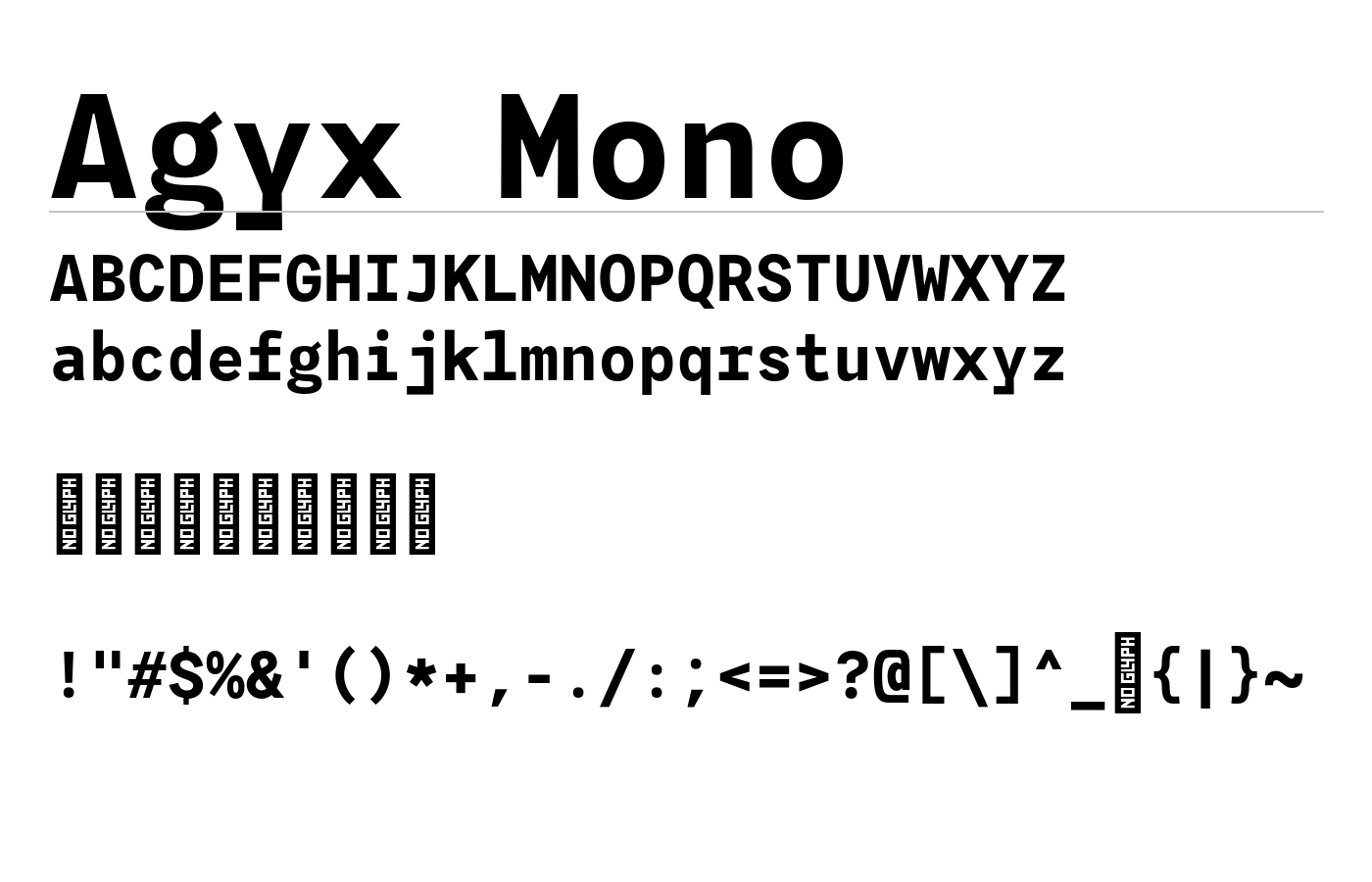
Agyx Mono is a bold, monospaced sans serif font with a modern and slightly industrial feel. Its consistent stroke weight, tall x-height, and unique, straightforward letterforms make it highly readable and suitable for coding, technical, or editorial use where clarity and uniformity are key. This font works well in digital interfaces, headlines, and branding that seek a clean, no-nonsense aesthetic with a touch of personality.
Agyx Mono Font
About Agyx Mono Font
| Font family | Agyx Mono Font |
| Languages supported | Latin, Symbols, Thai |
| Designer | Moch Fitrah Hidayat |